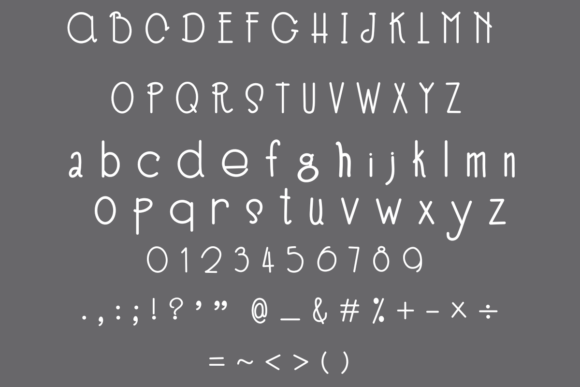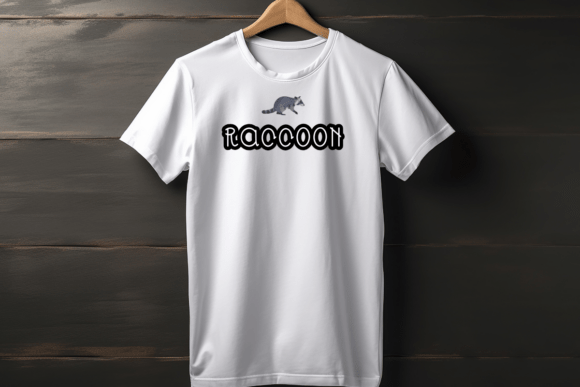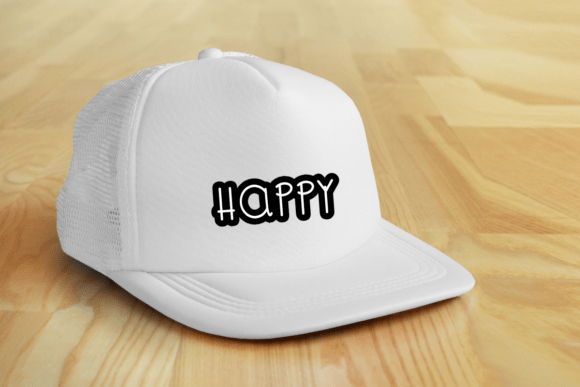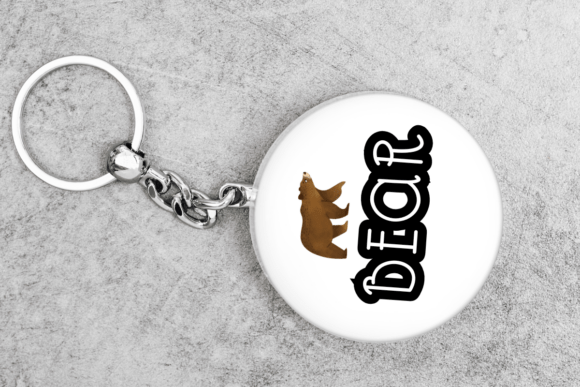
Introducing Beaver Font: The Sweet and Friendly Handwritten Font for Your Creative Projects
Are you a designer, crafter, or DIY enthusiast looking for a font that can add a touch of warmth and personality to your projects? Look no further than Beaver Font, a sweet and friendly handwritten font that’s perfect for a wide range of designs. With its natural and unique style, Beaver Font is incredibly versatile and can be used for everything from branding and packaging to crafting and DIY projects.
The Characteristics of Beaver Font
Beaver Font is a handwritten font that’s designed to look friendly, approachable, and downright adorable. Its natural and unique style makes it stand out from more traditional fonts, and its sweet and charming vibe is sure to capture the hearts of your audience. Whether you’re creating a logo, a label, or a social media graphic, Beaver Font is the perfect choice for adding a personal touch to your designs.
The Benefits of Using Beaver Font
So why choose Beaver Font for your next project? For starters, its unique and natural style makes it incredibly versatile and can be used for a wide range of designs. Additionally, its friendly and approachable vibe makes it perfect for brands and businesses that want to connect with their audience on a more personal level. Here are just a few benefits of using Beaver Font:
• Unique and eye-catching: Beaver Font is a one-of-a-kind font that’s sure to grab attention and make your designs stand out.
• Versatile: Whether you’re creating a logo, a label, or a social media graphic, Beaver Font is the perfect choice for a wide range of designs.
• Easy to read: Despite its handwritten style, Beaver Font is incredibly easy to read, making it perfect for body text and other written content.
• Customizable: With Beaver Font, you can easily customize the font to fit your brand’s style and aesthetic.
How to Use Beaver Font in Your Designs
So how can you use Beaver Font in your designs? The possibilities are endless! Here are a few ideas to get you started:
• Branding and packaging: Use Beaver Font to create custom labels, packaging, and branding materials that reflect your brand’s personality.
• Crafting and DIY projects: Add a personal touch to your crafting and DIY projects with custom signs, labels, and other decorative elements.
• Social media graphics: Use Beaver Font to create eye-catching social media graphics that stand out from the crowd.
• Stationery and invitations: Create custom stationery, invitations, and other paper goods with a personal touch.
Tips and Tricks for Getting the Most Out of Beaver Font
Here are a few tips and tricks for getting the most out of Beaver Font:
• Experiment with different colors: Beaver Font looks great in a variety of colors, so don’t be afraid to experiment and find the perfect hue for your design.
• Mix and match with other fonts: Beaver Font pairs well with a variety of other fonts, so feel free to get creative and mix and match to find the perfect combination.
• Use it for headlines and body text: Beaver Font is easy to read, making it perfect for both headlines and body text.
Font Name Beaver Font